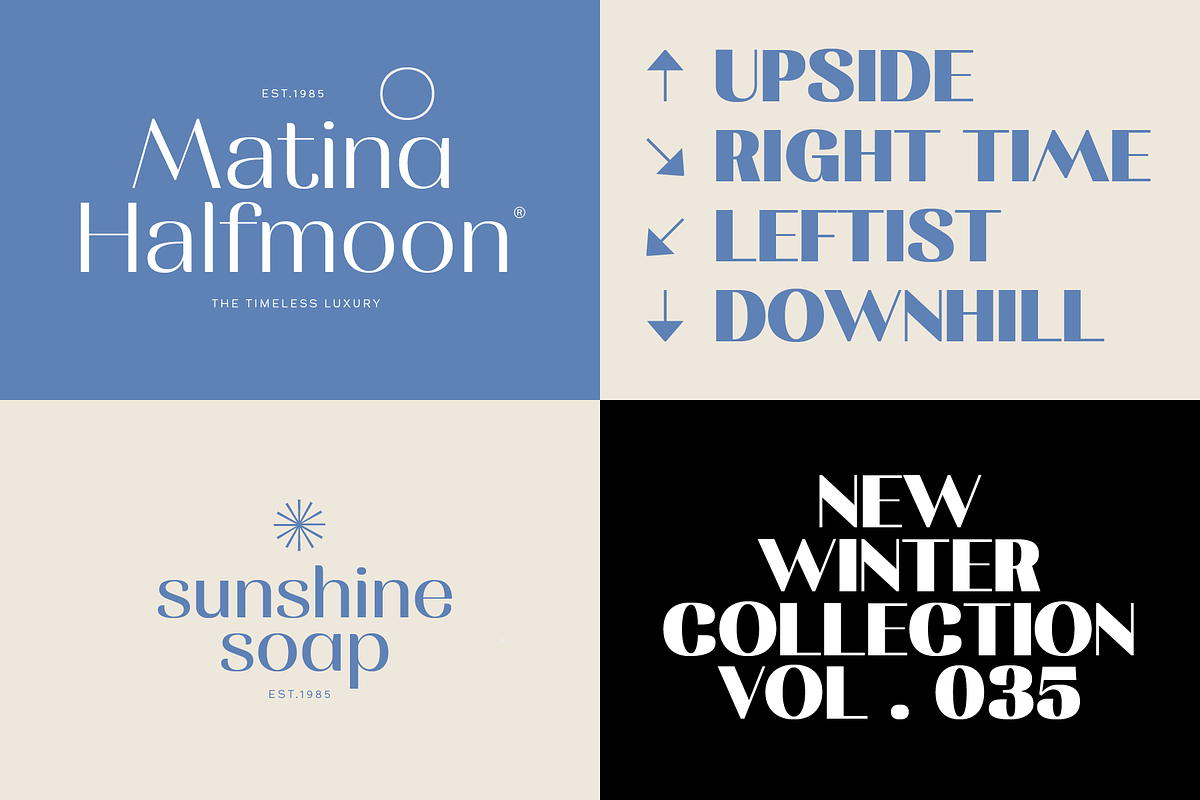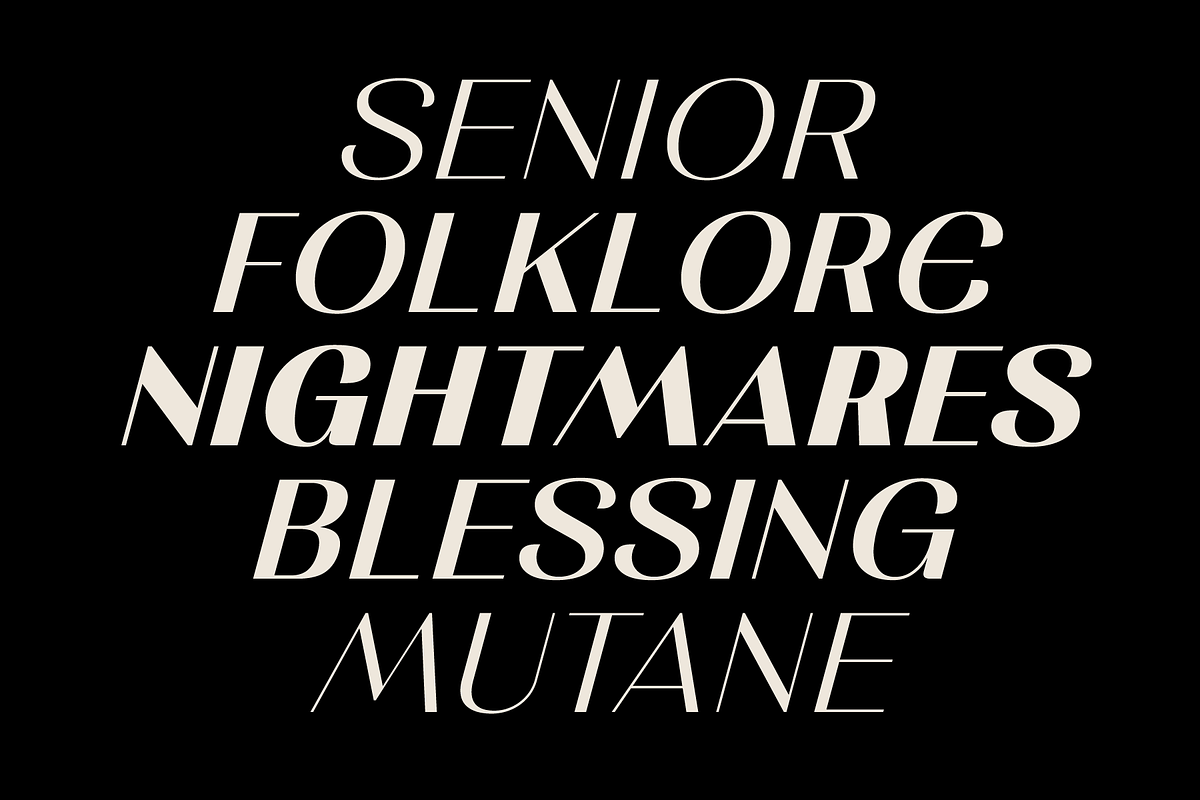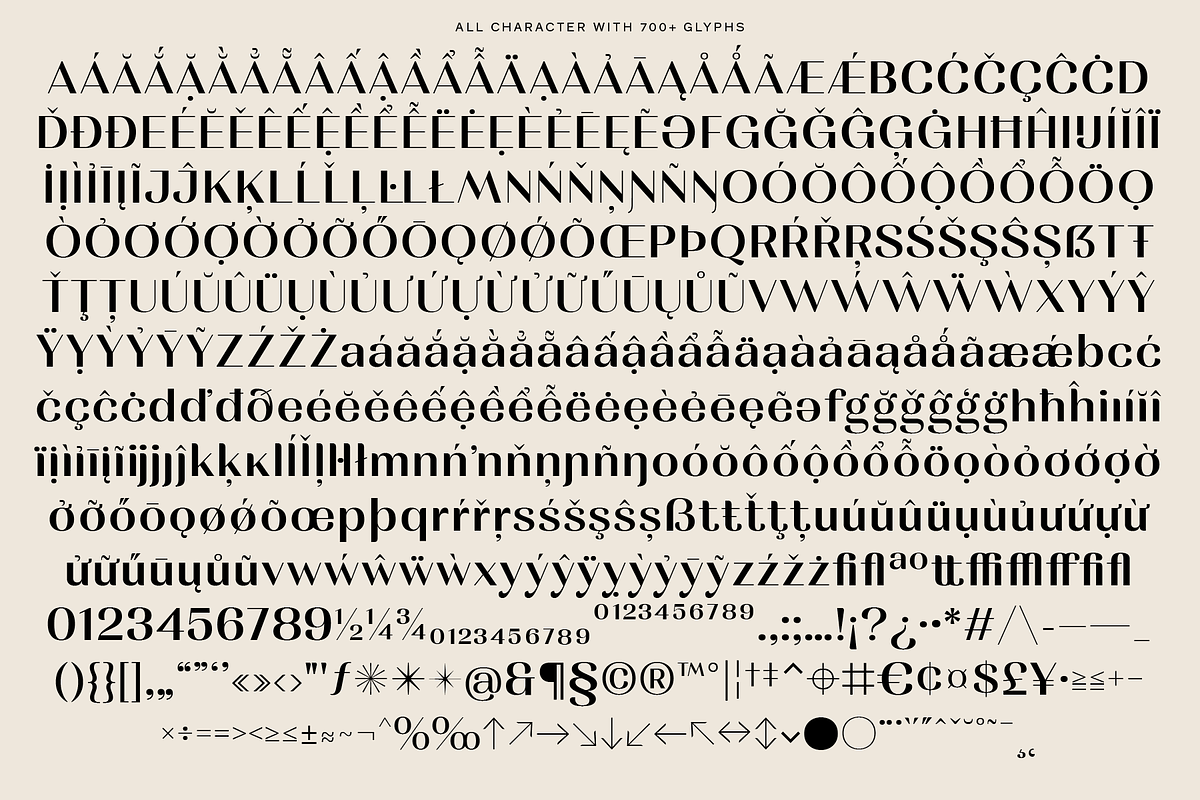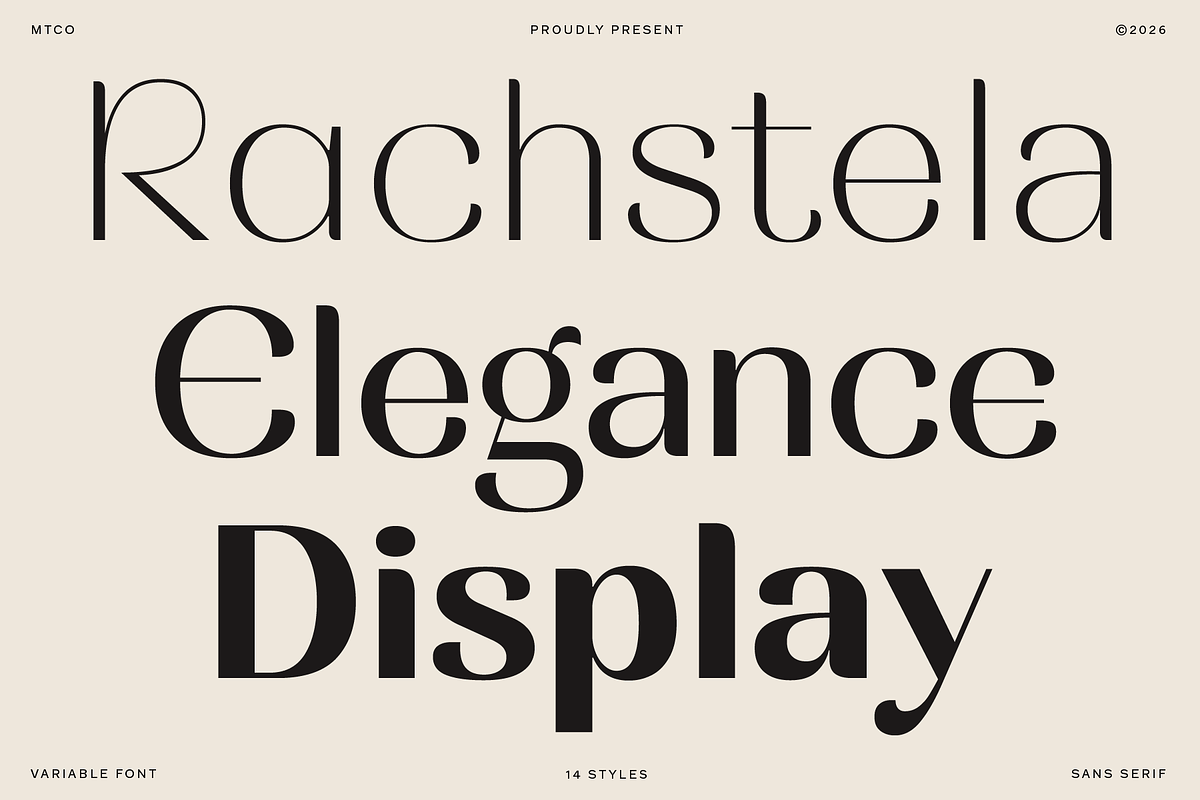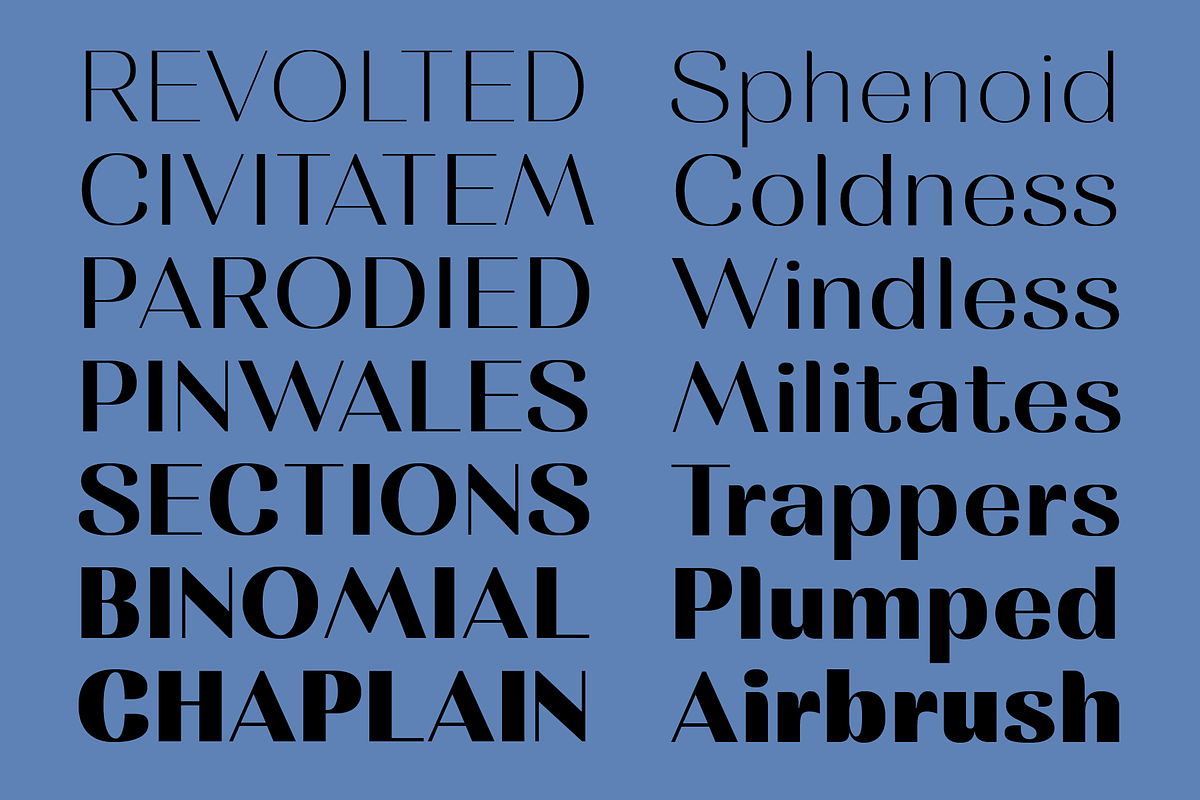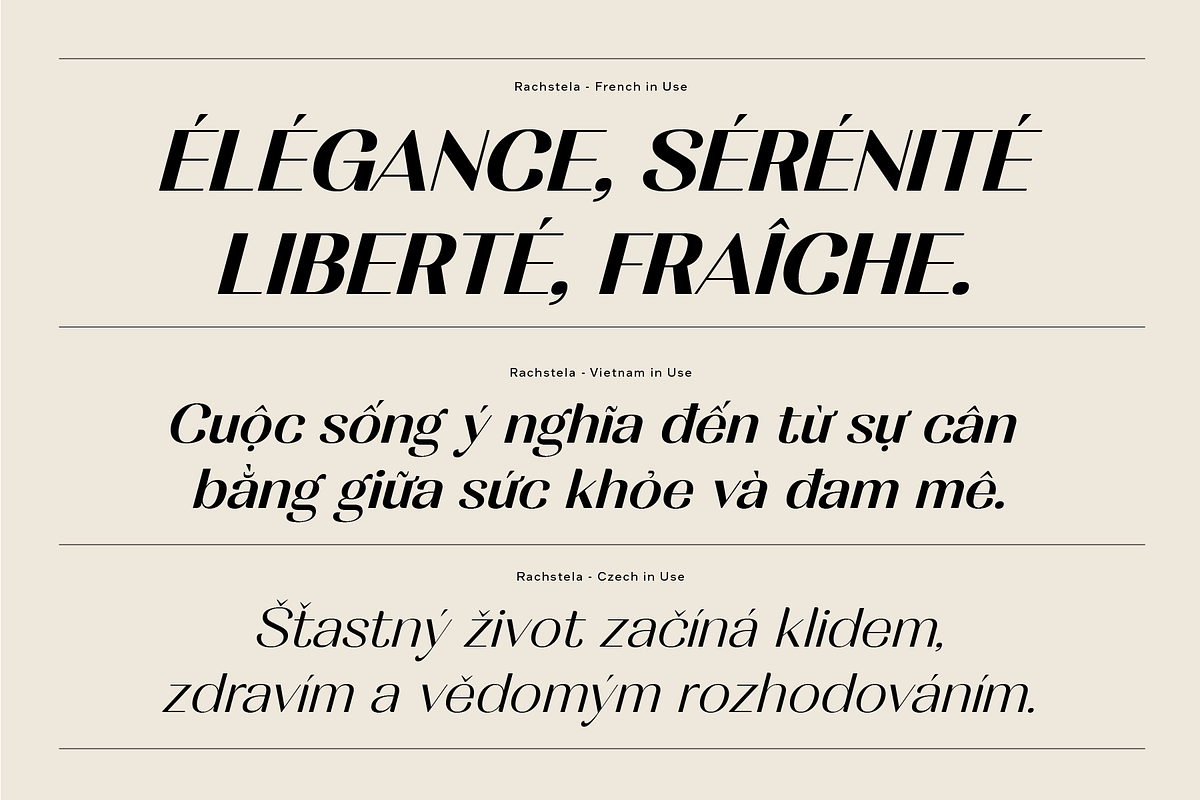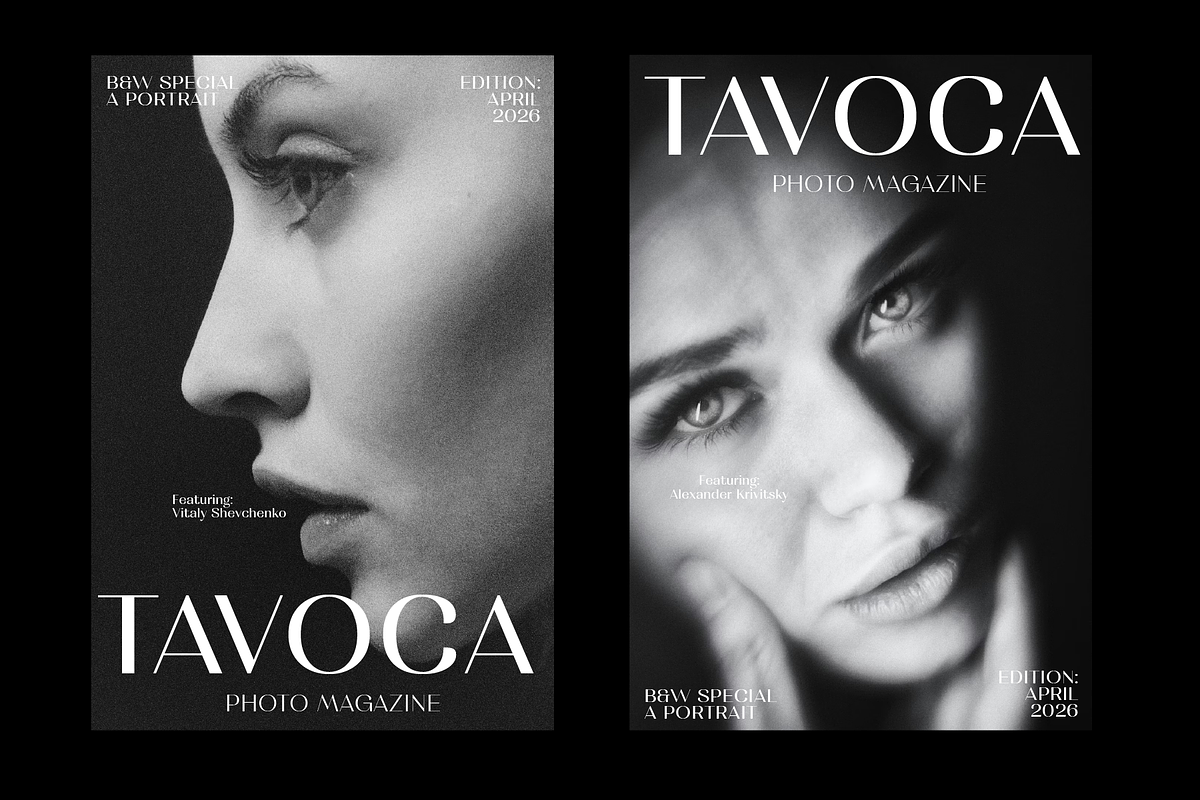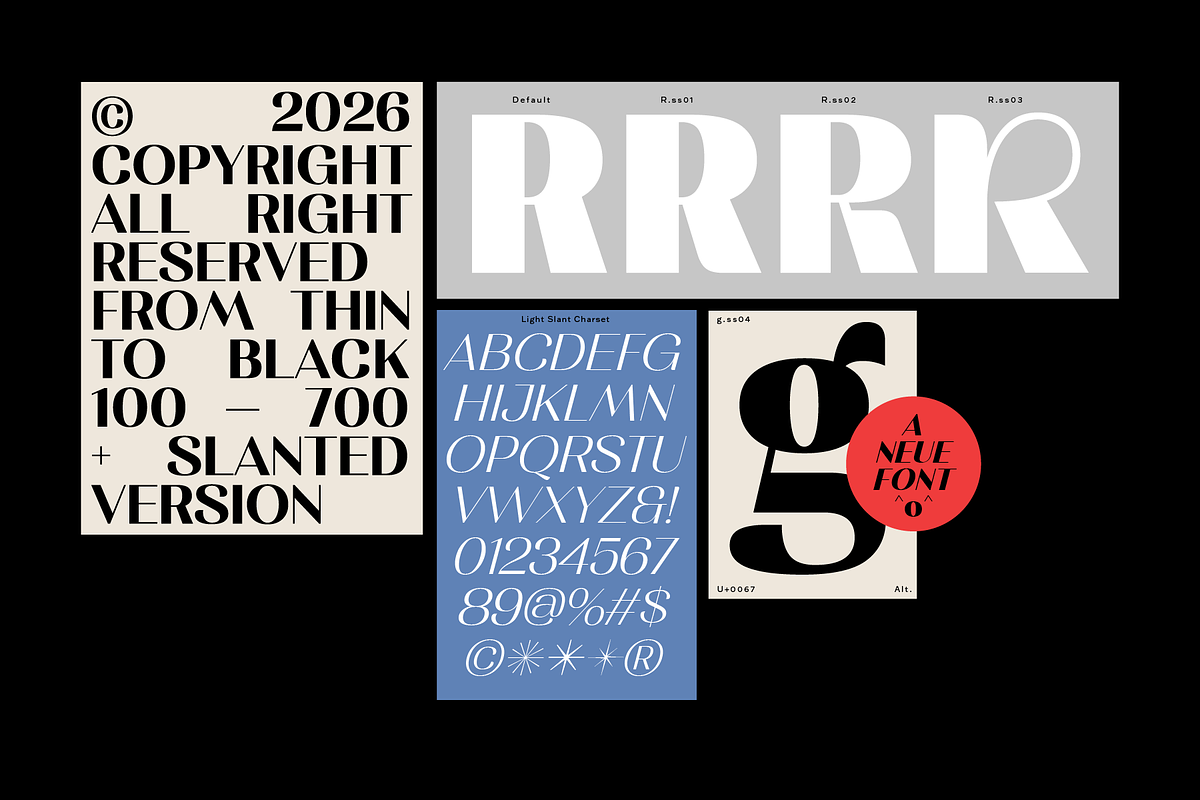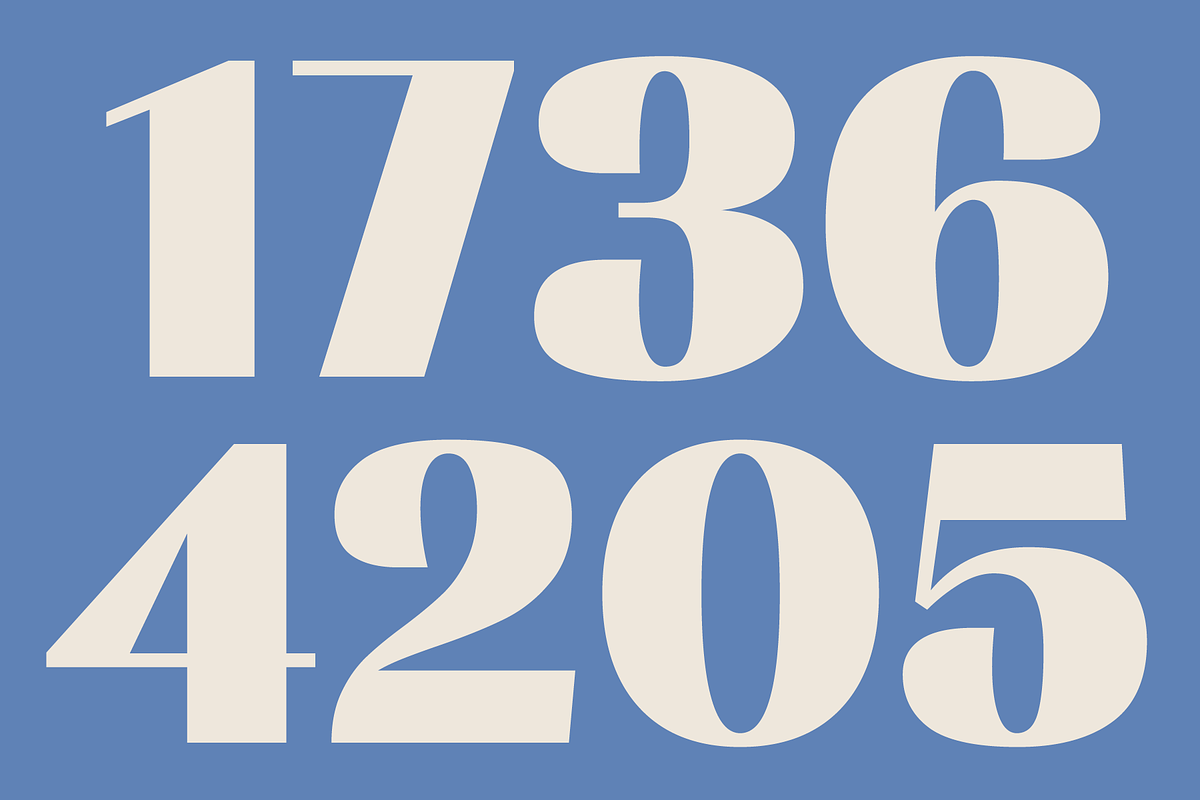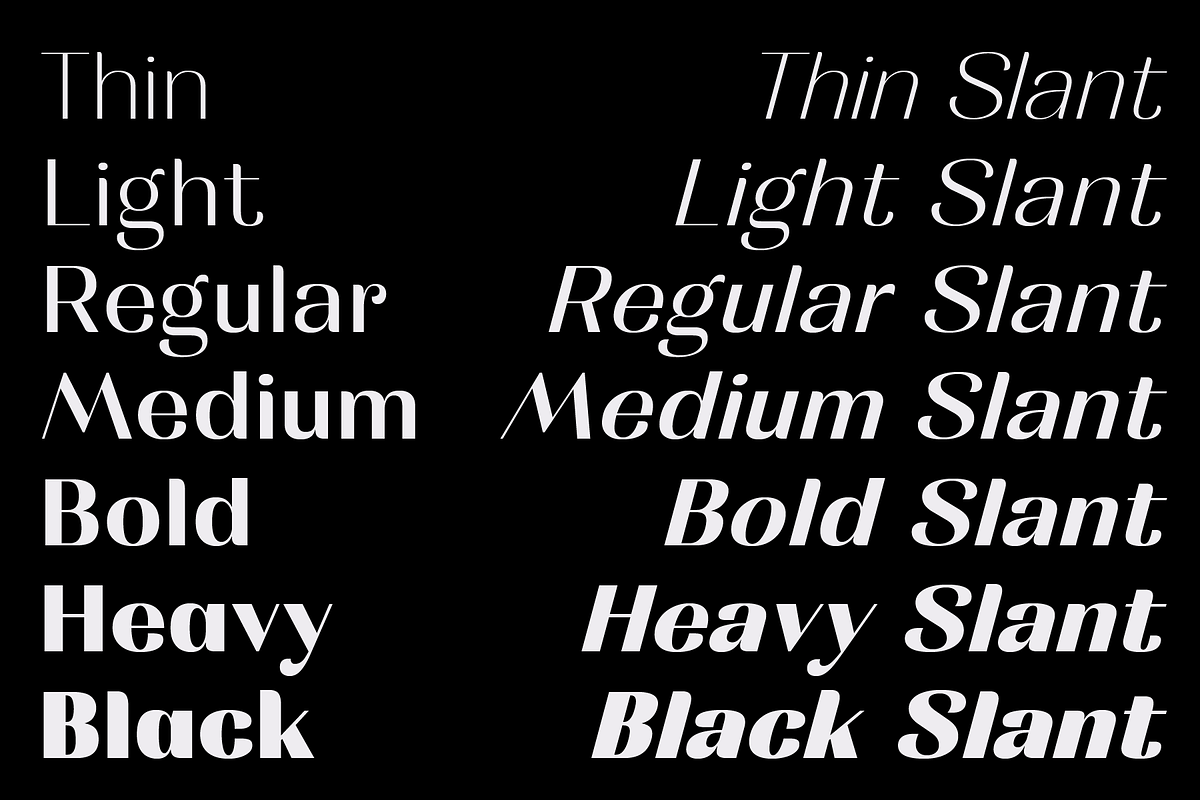
Rachstela Font Family - 14 Styles!
Rachstela a High Contrast Sans Serif Font Family
Rachstela is a bold, high-contrast sans serif typeface designed for those who speak in headlines. With its striking stroke variation and sharp geometric precision, Rachstela commands attention whether it's leading a luxury fashion campaign, anchoring a high-end editorial spread, or making a statement on a poster that refuses to be ignored.
Built for sophistication, Rachstela delivers the editorial tension of a contrast serif with the clean modernity of a sans serif a rare combination that makes it instantly distinctive in the world of display typography.
• 14 crafted styles from Thin to Bold • Variable font support for seamless weight transitions • Ideal for headlines, poster design, logotypes, packaging, and brand identity • OpenType features including ligatures, alternate characters, and stylistic sets • Extended Latin character set for broad multilingual support
Luxury fashion brands, beauty campaigns, high-end editorial layouts, magazine covers, event branding, perfume and cosmetics packaging, wedding stationery, architectural signage, and premium product identity.